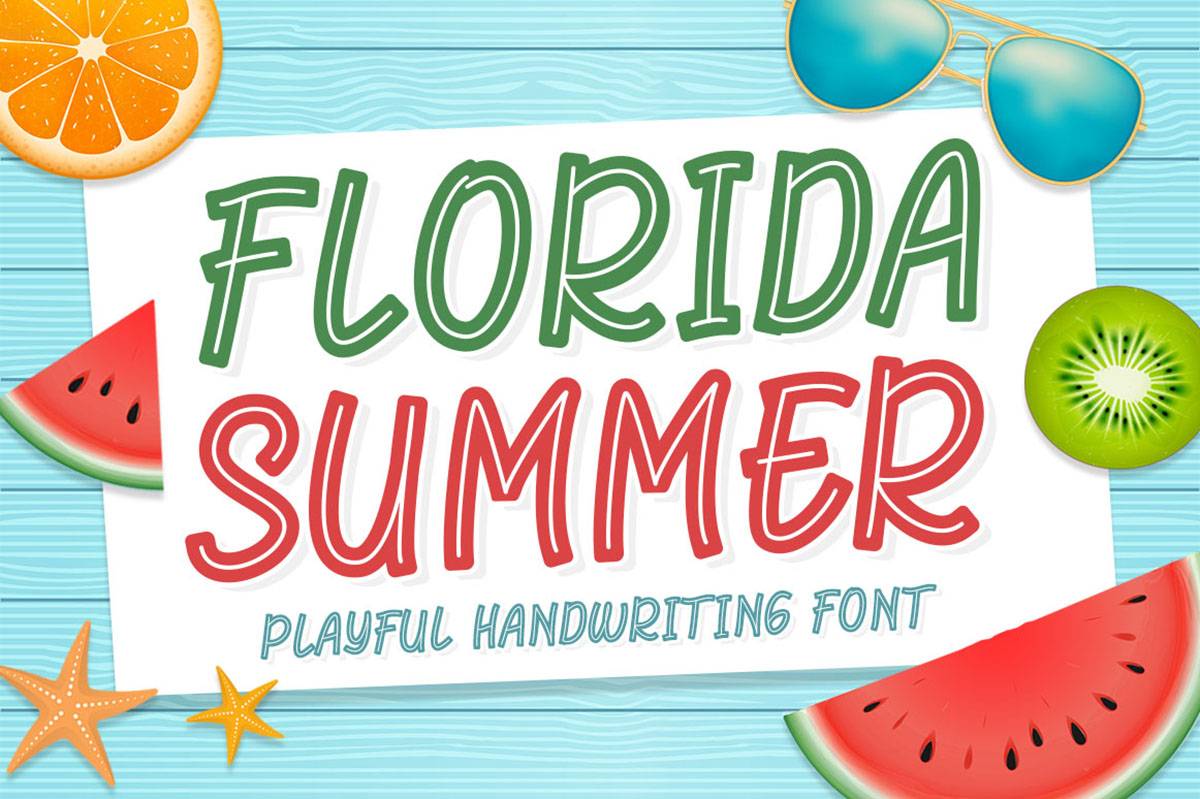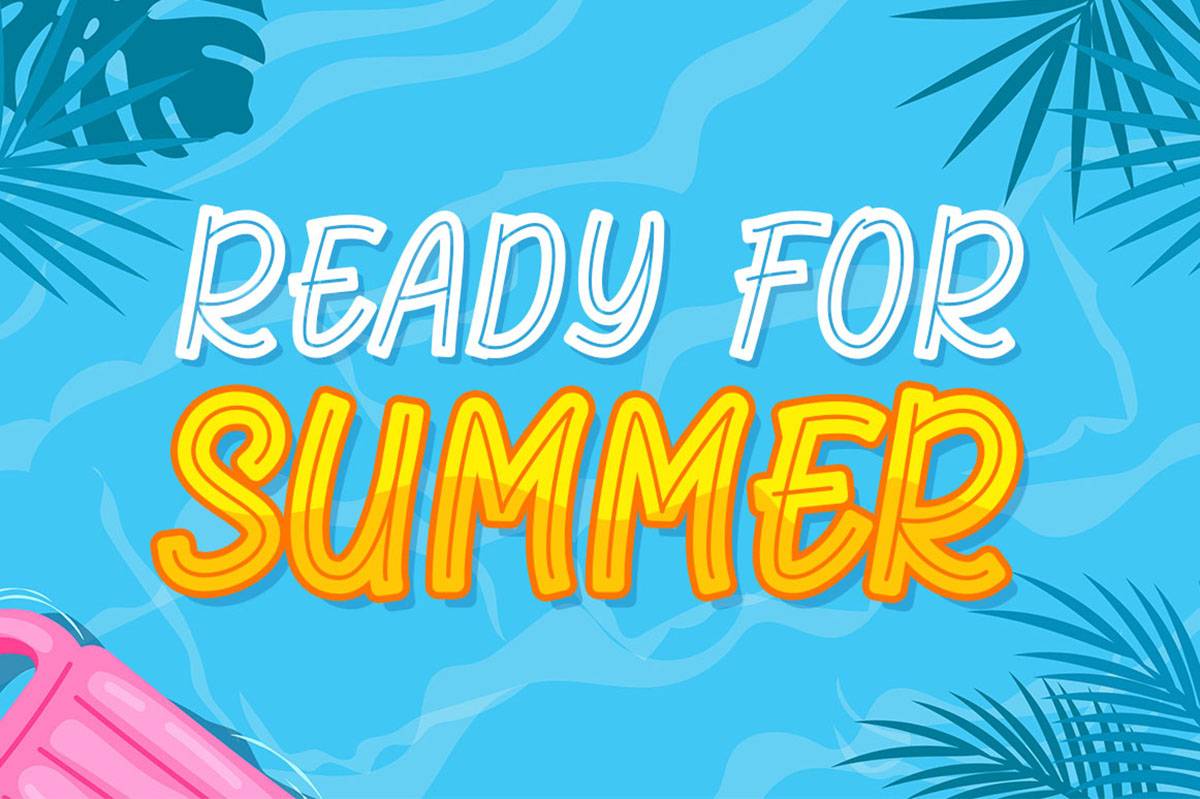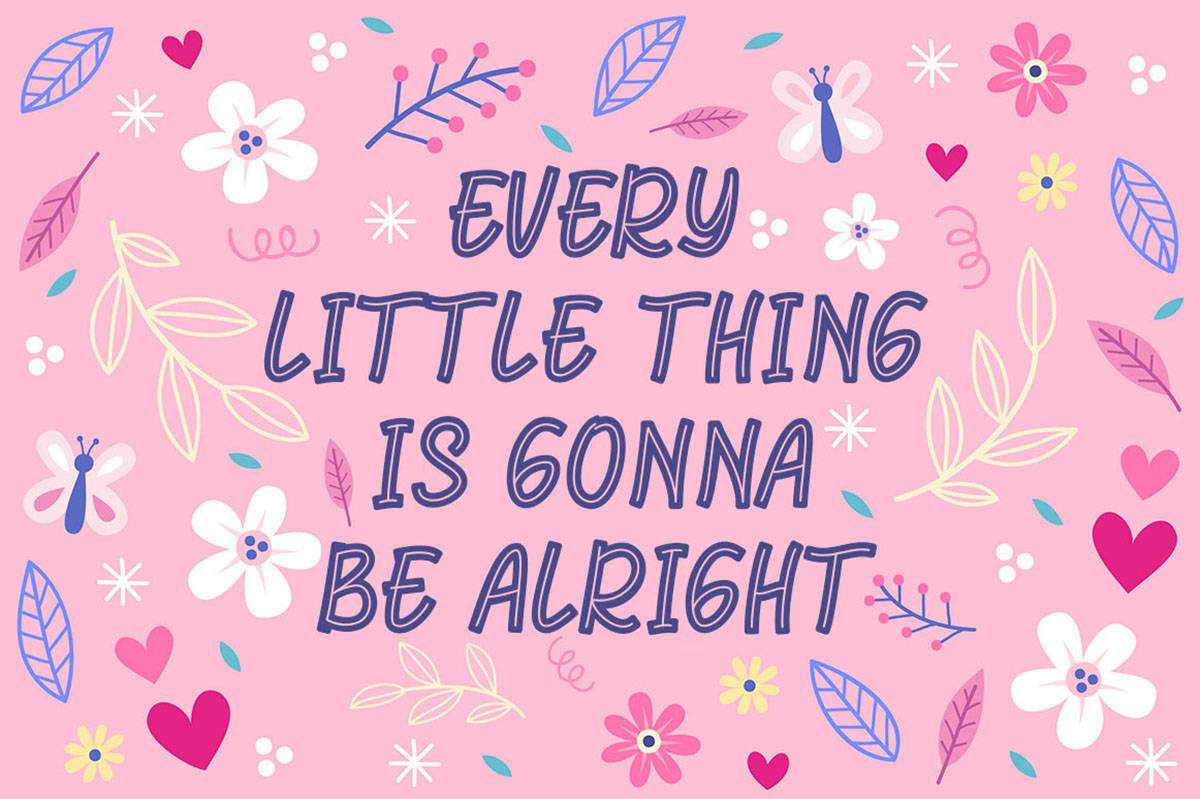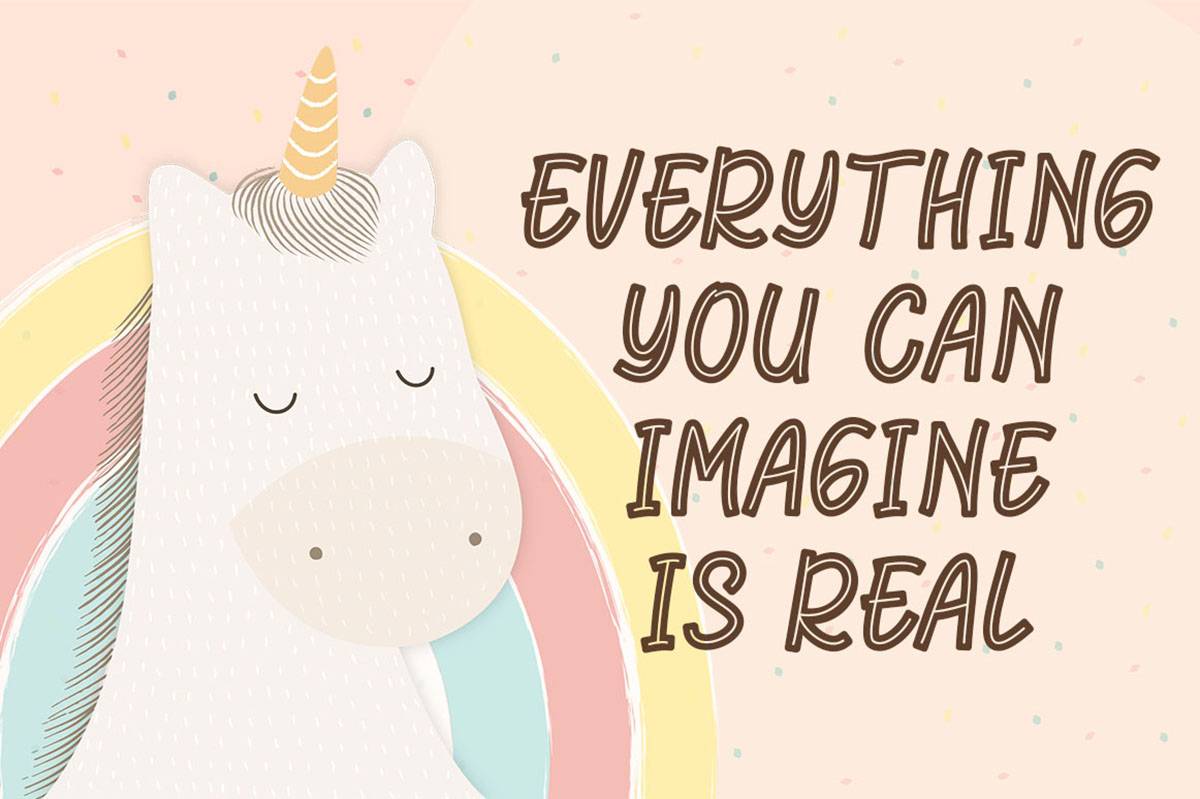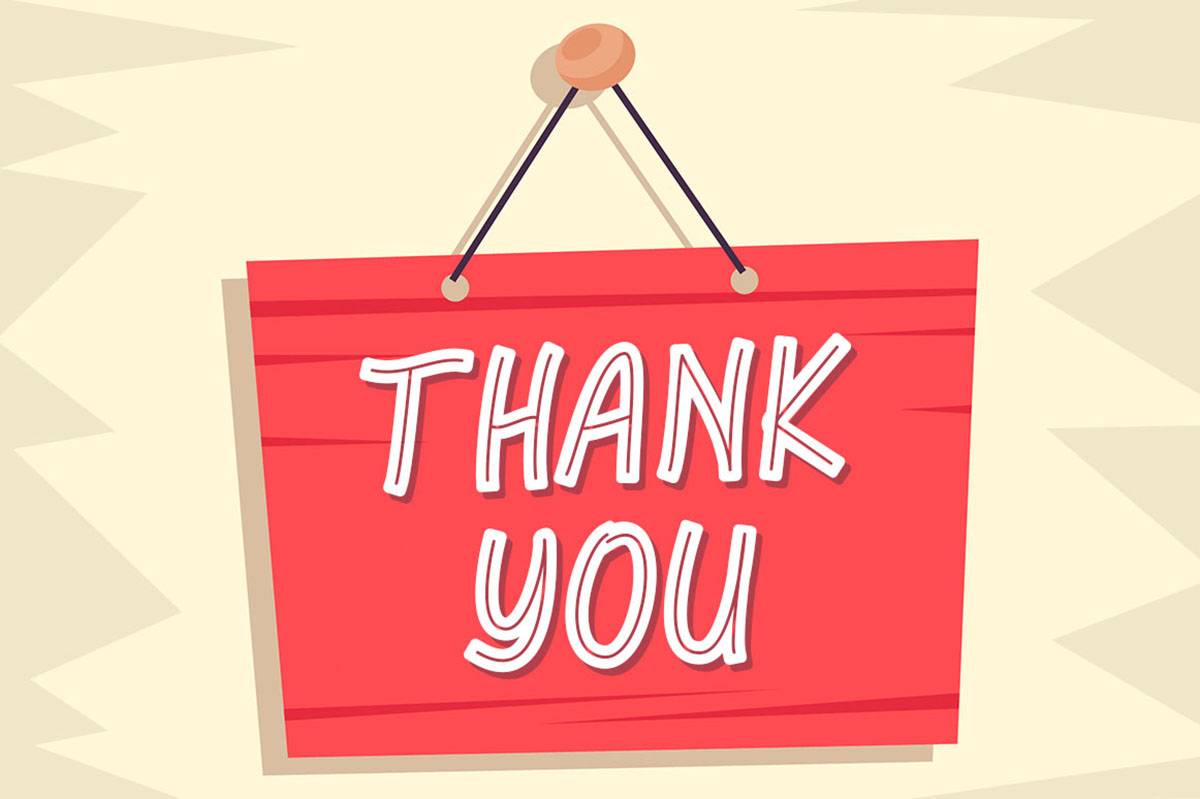
Florida Summer is a playful, casual script-inspired sans serif font with a hand-drawn, outlined style that brings a lively and energetic vibe. Its slightly condensed letterforms and moderate contrast make it ideal for vibrant, youthful branding, fun headlines, and creative projects that want to evoke a sunny, carefree atmosphere. This font works well for summer event posters, travel branding, and any design looking to capture a breezy, informal spirit.
Florida Summer Font
About Florida Summer Font
| Font family | Florida Summer Font |
| Release date | 2020-04-30 |
| Designer | M Arif Dwi Prasetyo & Eko Nurcahyo |